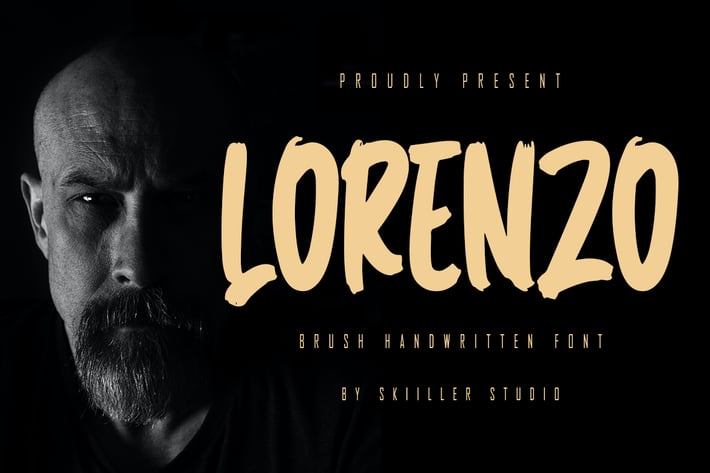
Lorenzo - Brush Handwritten Font
Lorenzo Handwritten brush Font. It looks beautiful on a variety of designs requiring a personalized style, such as wedding invitations, thank you cards, weddings, greeting cards, logos and so on. This font is PUA encoded which means you can access all of the glyphs and swashes with ease!